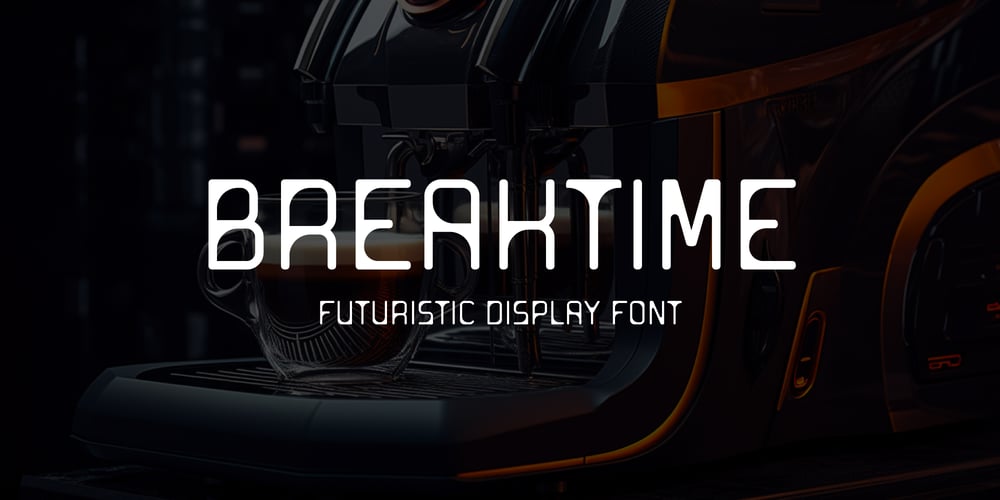
Breaktime Font Family was designed by Agustian Eko Saputro, Aprilia Nurina Putri and published by Mightyfire. Breaktime contains 1 styles and family package options. Step into the future with Breaktime, a cutting-edge digital futuristic font that seamlessly merges technology, innovation, and style. Inspired by the sleek aesthetics of tomorrow’s digital landscape, Breaktime embodies a perfect synergy of form and function.Whether you’re designing a tech-forward website, a space-age poster, or a forward-looking logo, Breaktime is your gateway to a digital tomorrow. Embrace the future of typography with this innovative font and let your creations resonate with the essence of tomorrow’s possibilities. Breaktime โ where technology meets typography in perfect harmony.We’re proud and honored if Breaktime can be the part of your special projects. Thank you ๐